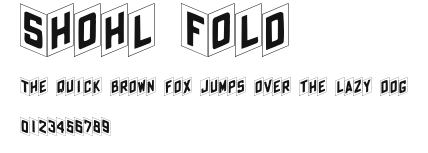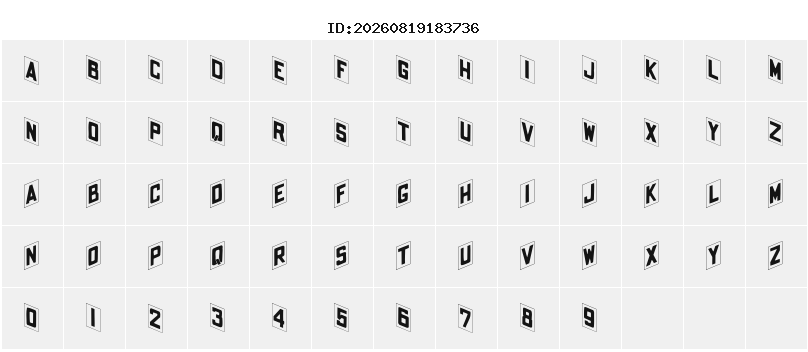
• Font Name: Shohl-Fold
• Full Font Name: Shohl-Fold
About Shohl-Fold.ttf
Shohl-Fold.ttf is a modern, elegant sans-serif font designed for ultimate readability and visual harmony. Perfect for branding, headlines, web design, and print materials.